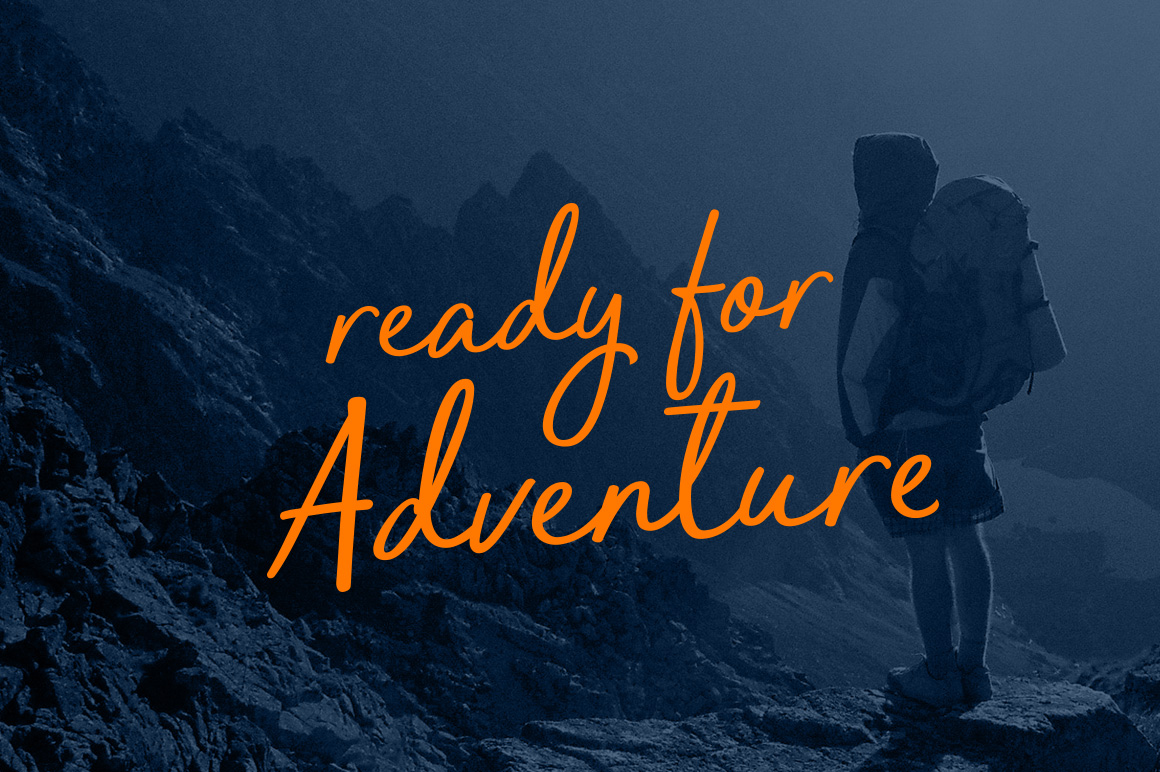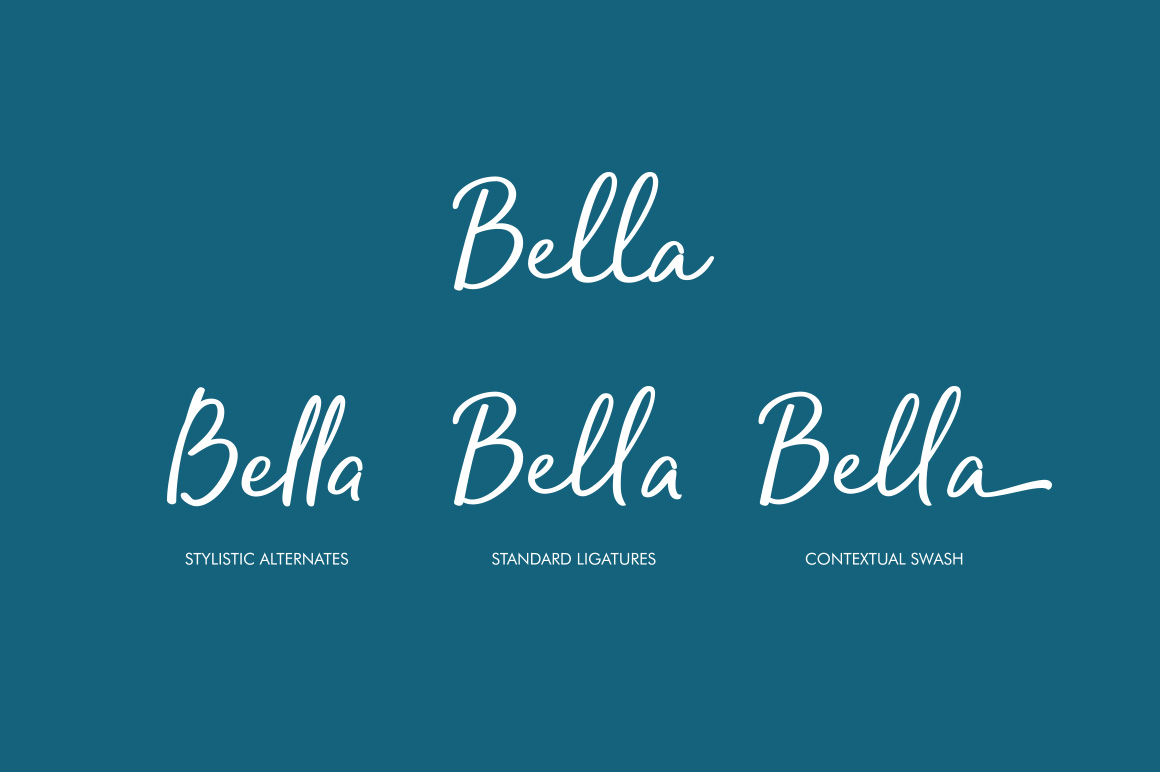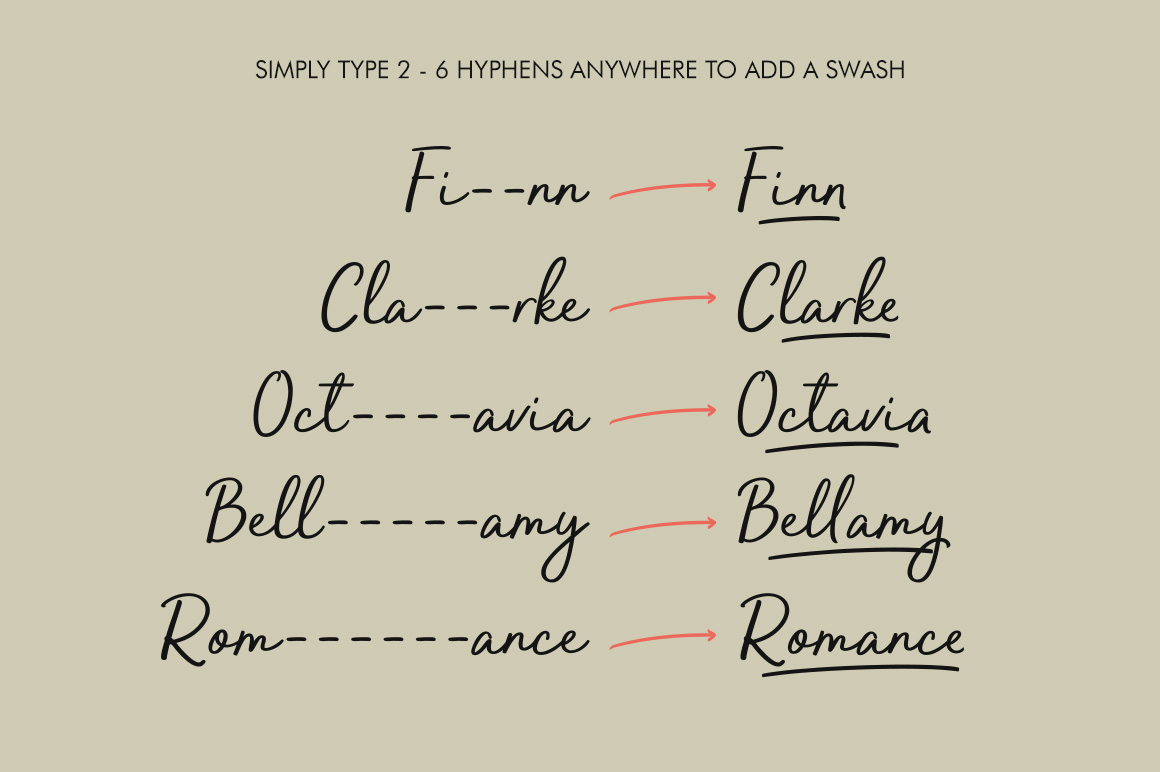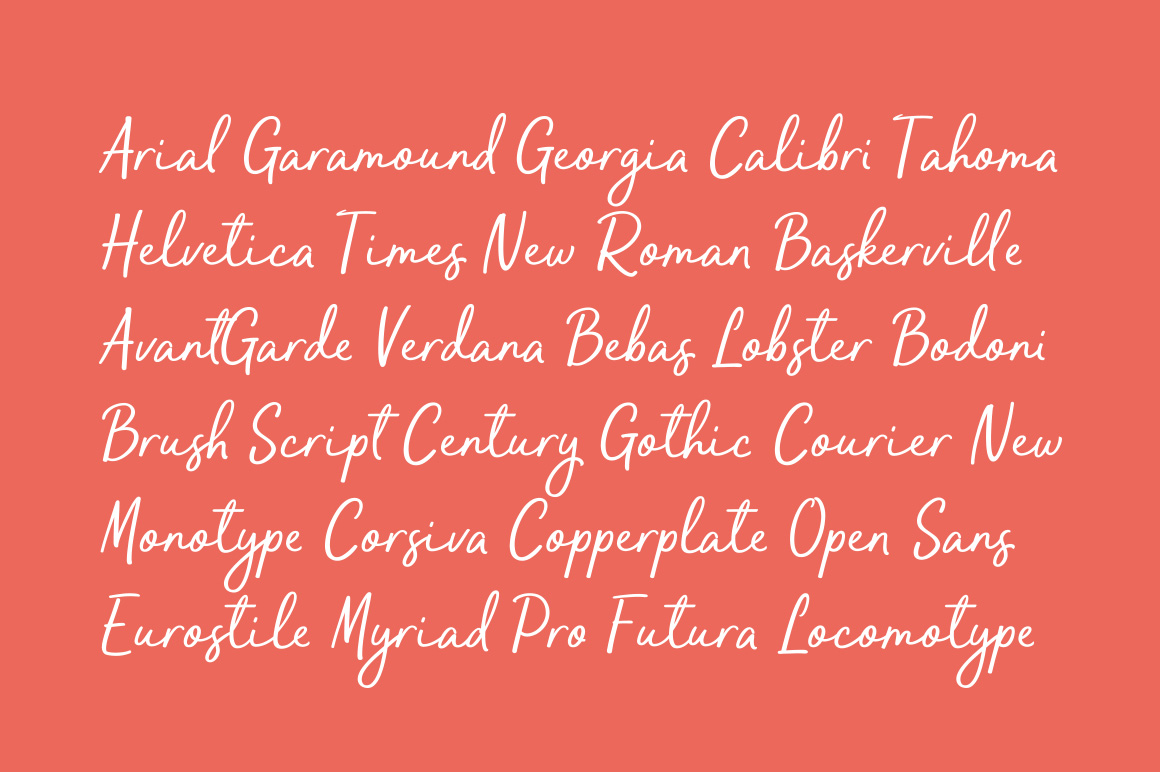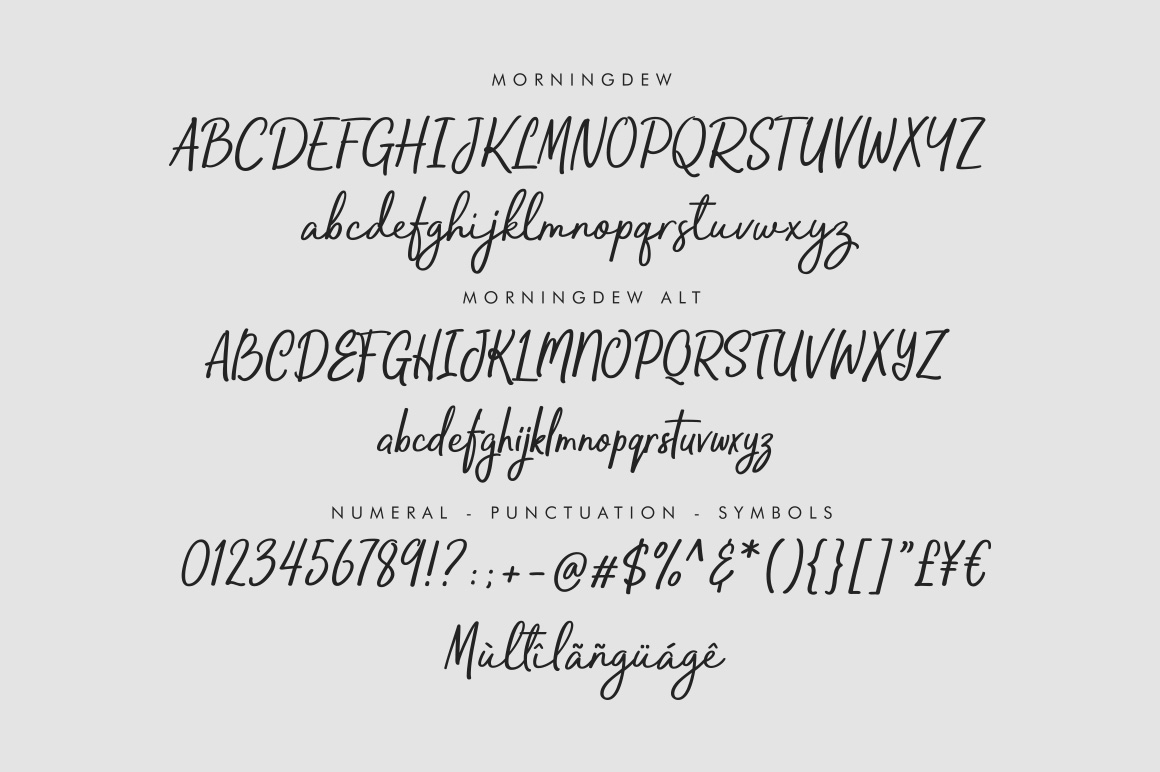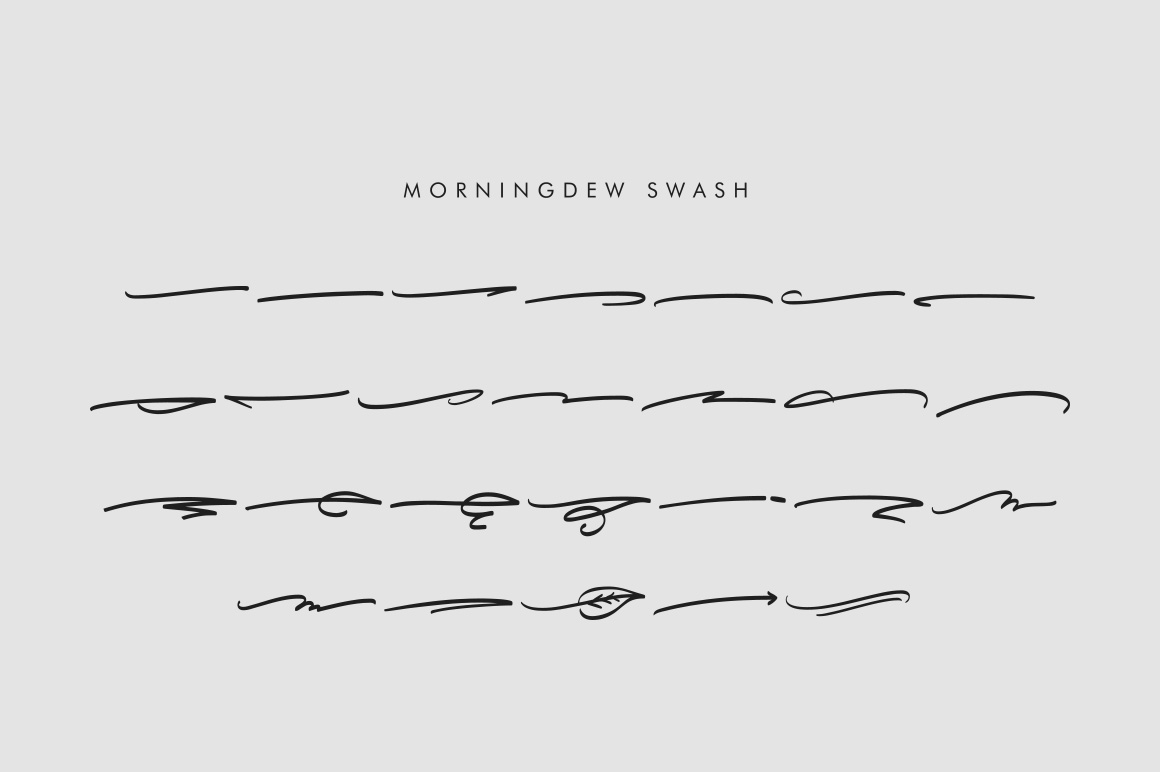
Introduction to Morning Dew Font
Imagine yourself standing in a lush meadow on a misty morning, the dew-kissed grass beneath your feet, the warm sun peeking through the clouds, and the gentle breeze whispering sweet melodies. It’s in these serene moments that creativity awakens, and the world becomes a canvas waiting to be filled with vibrant colors and delicate brushstrokes. It’s exactly this feeling that the Morning Dew Font aims to capture, a beautiful expression of love and tenderness that transcends words.
As a valuable resource for designers, the Morning Dew Font is a high-quality addition to any creative project. With its transparent background, this free download is perfect for those looking to add a touch of elegance to their designs. Whether you’re working on a graphic novel, a children’s book, or a wedding invitation, this font is sure to bring a sense of whimsy and wonder to your work.
Key Features of Morning Dew Font
- High-quality, unique font design for creative projects, suitable as a design resource.
- Unique characteristics include a delicate, water-inspired aesthetic and a subtle texture that adds depth to any design.
- Perfect for use in digital design projects, such as logos, branding materials, and web graphics, due to its modern and elegant feel.
- Also suitable for use in print design, including business cards, brochures, and posters, thanks to its crisp and clear appearance.
Honest Review: Morning Dew Font
I recently came across the Morning Dew Font while searching for a design resource for a creative project. I was impressed by the font’s high quality and decided to give it a try.
- Unique and elegant design: The Morning Dew Font has a beautiful, hand-drawn feel to it.
- Limited language support: The font only supports a limited number of languages, which might be a issue for some designers.
- No bold or italic styles: If you need bold or italic text, you’ll have to use a separate font or create custom styles.
Overall, I’m quite pleased with the Morning Dew Font. It’s a great addition to my design toolkit, and I appreciate that it’s available for free download. If you’re looking for a unique and elegant font for your next project, I’d definitely recommend giving it a try.
Getting the Most Out of Morning Dew Font
To get the most out of the Morning Dew Font, use it in conjunction with other high-quality design resources. Experiment with different font sizes and styles to create a visually appealing design. You can also use the font in a variety of creative projects, from logos to social media graphics.
The Morning Dew Font is perfect for use in creative projects that require a touch of elegance and sophistication. Some common use cases include:
- Invitations and event materials
- Branding and marketing materials